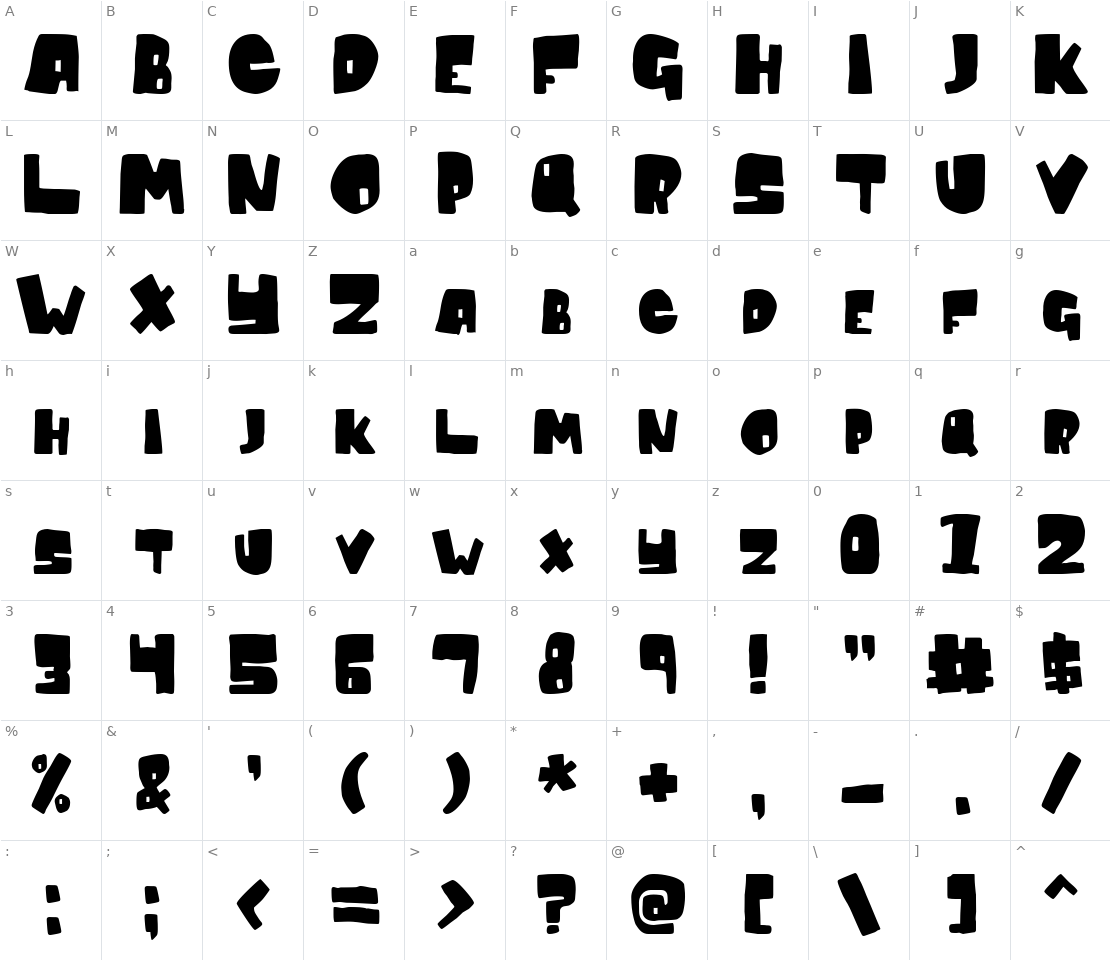
Conventional Wisdom
Conventional Wisdom is a bold, rounded display face from Divide by Zero with letterforms that wobble and bounce in deliberately irregular ways, giving it a loose, offbeat personality. The heavy strokes keep it punchy and readable at large sizes, while the quirky shapes make sure nothing feels too serious. A good pick for headlines, posters, and playful branding where a little visual mischief goes a long way.